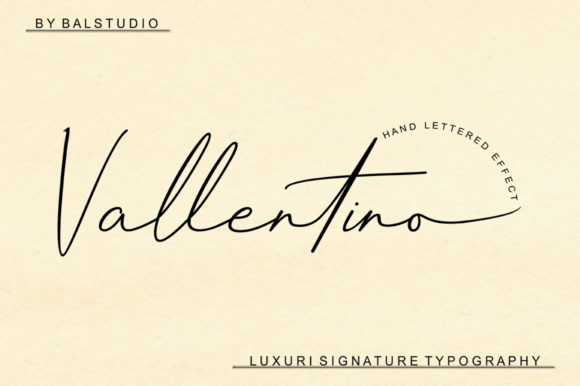
Let your designs bloom with Vallentino, a fashion-forward script font. Crafted with art deco strokes, Vallentino effortlessly combines vintage charm with contemporary sophistication. Dive into this font's allure, and watch as your creative visions blossom into beautiful realities. Vallentino's refined curves mimic hand-drawn lettering, capturing the hearts of those seeking authentic, vintage-style calligraphy. Whether designing wedding invitations, branding projects, or social media graphics, Vallentino Font will make your designs shine with timeless grace. Its elegance effortlessly elevates any project, turning even the simplest designs into captivating visual statements.
Step into a world where lettering takes center stage. Vallentino Font is a collaboration between art deco and modernity, a symphony of sleek lines and flamboyant curves that will mesmerize your audience. Designed by the creative minds at Bal Studio, Vallentino embodies the pinnacle of aesthetic pleasure, merging nostalgic charm with contemporary allure.
Unleash your creativity with Vallentino, a script font that sparks a whirlwind of possibilities. From heartfelt messages on personalized cards to captivating social media posts, let your designs dance with elegance and grace. Vallentino's versatility knows no bounds, adapting effortlessly to various design styles and projects. Its charm extends beyond the digital realm, gracing physical invitations, posters, and merchandise with its timeless splendor.
Immerse yourself in Vallentino's captivating world, where aesthetics merge harmoniously with functionality. With meticulously crafted glyphs and multilingual support, Vallentino adapts seamlessly to a global audience. Whether your designs speak in English, French, or Spanish, Vallentino's eloquent style shines through, captivating hearts across borders and cultures. This font is more than just a collection of letters; it's an invitation to embark on an artistic journey, where your imagination takes the lead and your designs blossom into enchanting masterpieces.